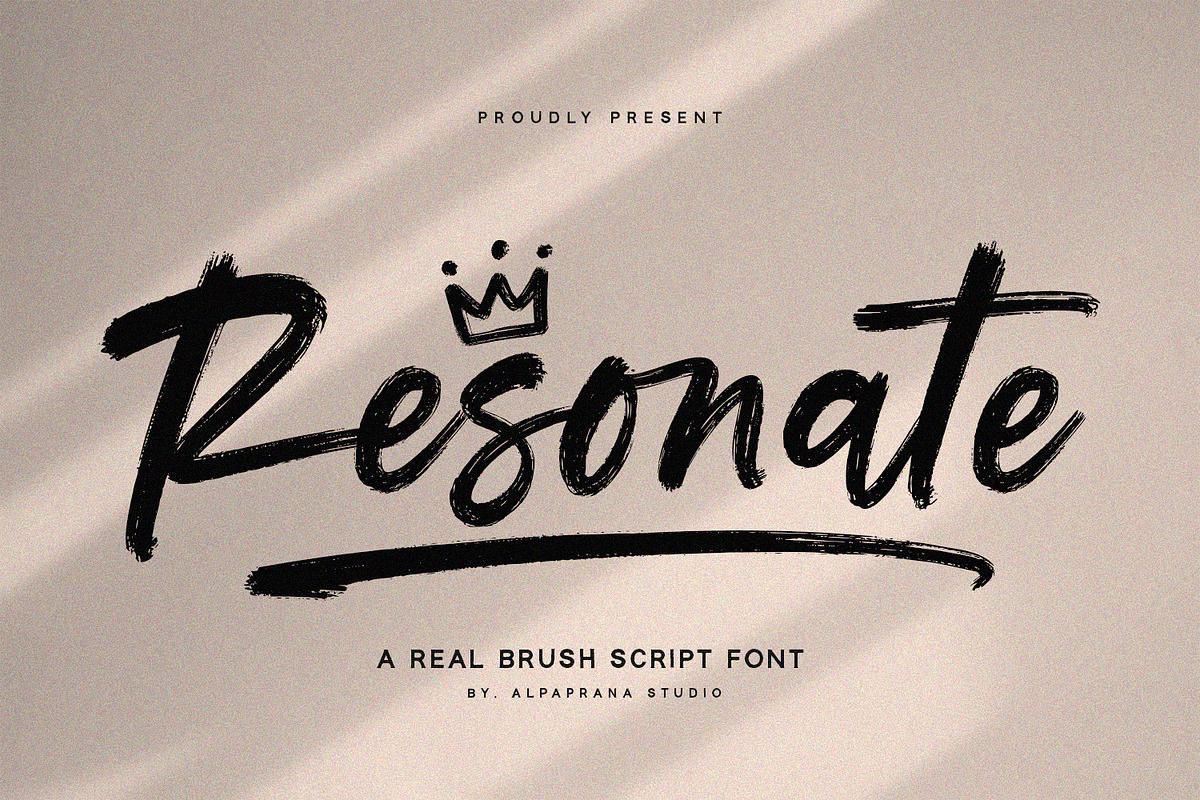
Resonate - Brush Script Font Free Download
Resonate - Brush Script Font Free Download is a bold and expressive typeface that mimics the dynamic strokes of a brush pen. With its fluid, handwritten design, this font brings energy and personality to any project. Perfect for branding, event invitations, social media graphics, posters, and more, Resonate adds an artistic, modern touch to your typography.
The strong, sweeping curves and bold brush strokes make it ideal for creative and high-impact designs. Whether you're crafting a vibrant brand identity or a playful poster, Resonate helps you convey a sense of style and creativity.
Add an expressive and artistic flair to your designs with Resonate - Brush Script Font Free Download, and create typography that stands out with bold brushstrokes and energy. Perfect for designers seeking a dynamic, handwritten font.